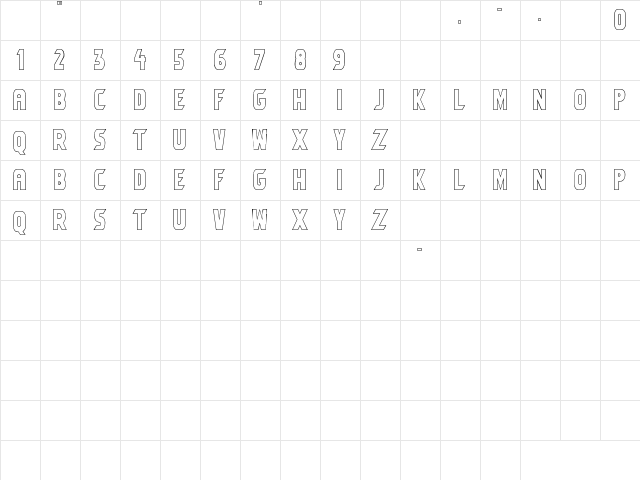
Umbro Outline Regular
Design Context for Umbro Outline Typeface
Umbro Outline is built around its visual character rather than neutral utility — its distinctive forms are designed to make an impression at display sizes.
Font Pairing: Pair with a clean neutral sans-serif for body copy to let Umbro Outline's character lead without overwhelming the composition.
Pro Tip: Treat Umbro Outline as the centrepiece of your typographic hierarchy. One strong heading set in a decorative face can carry an entire layout.